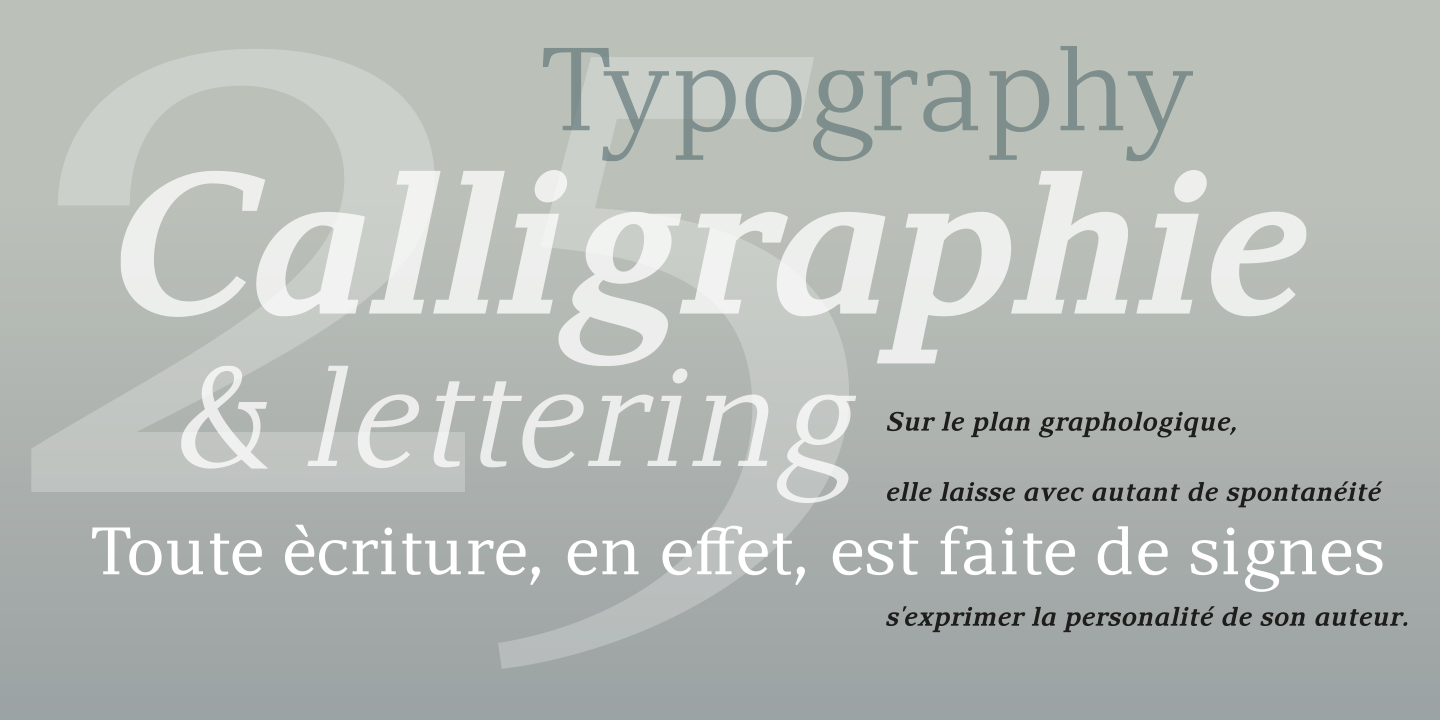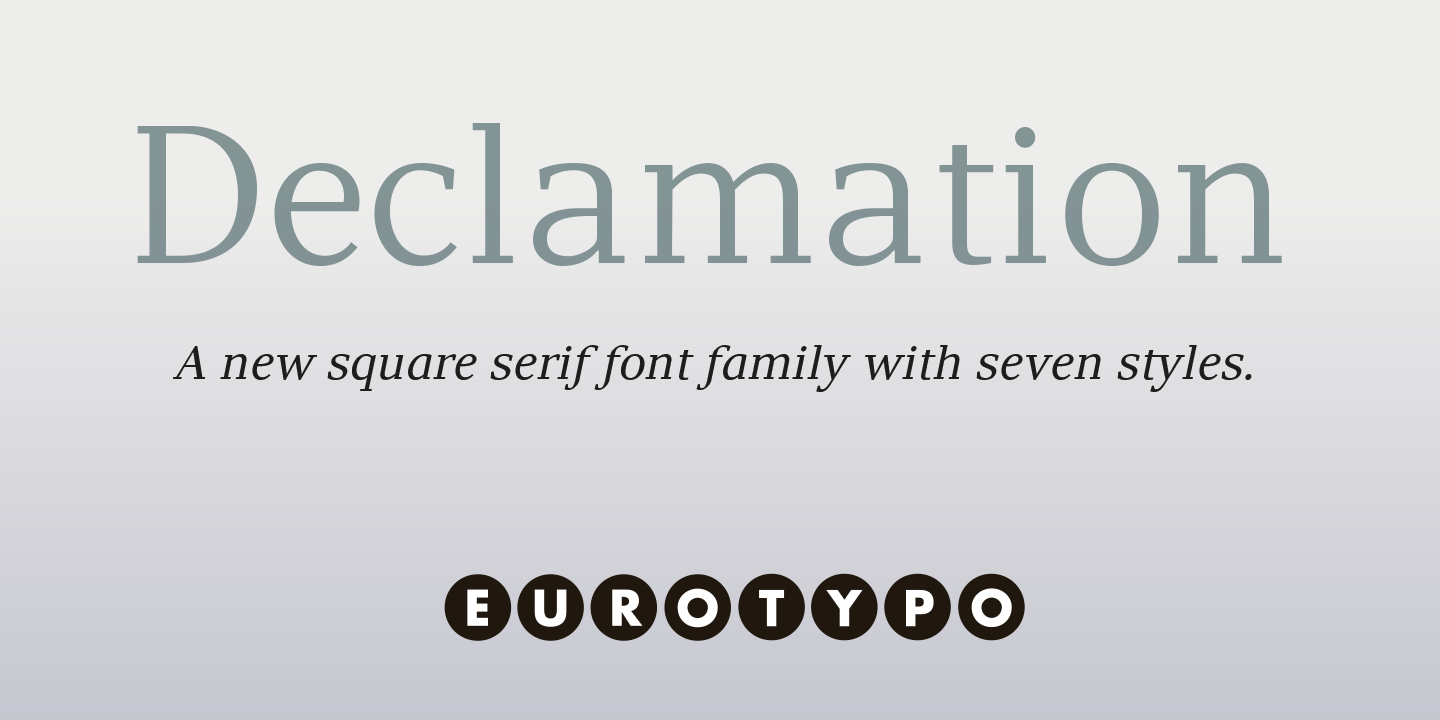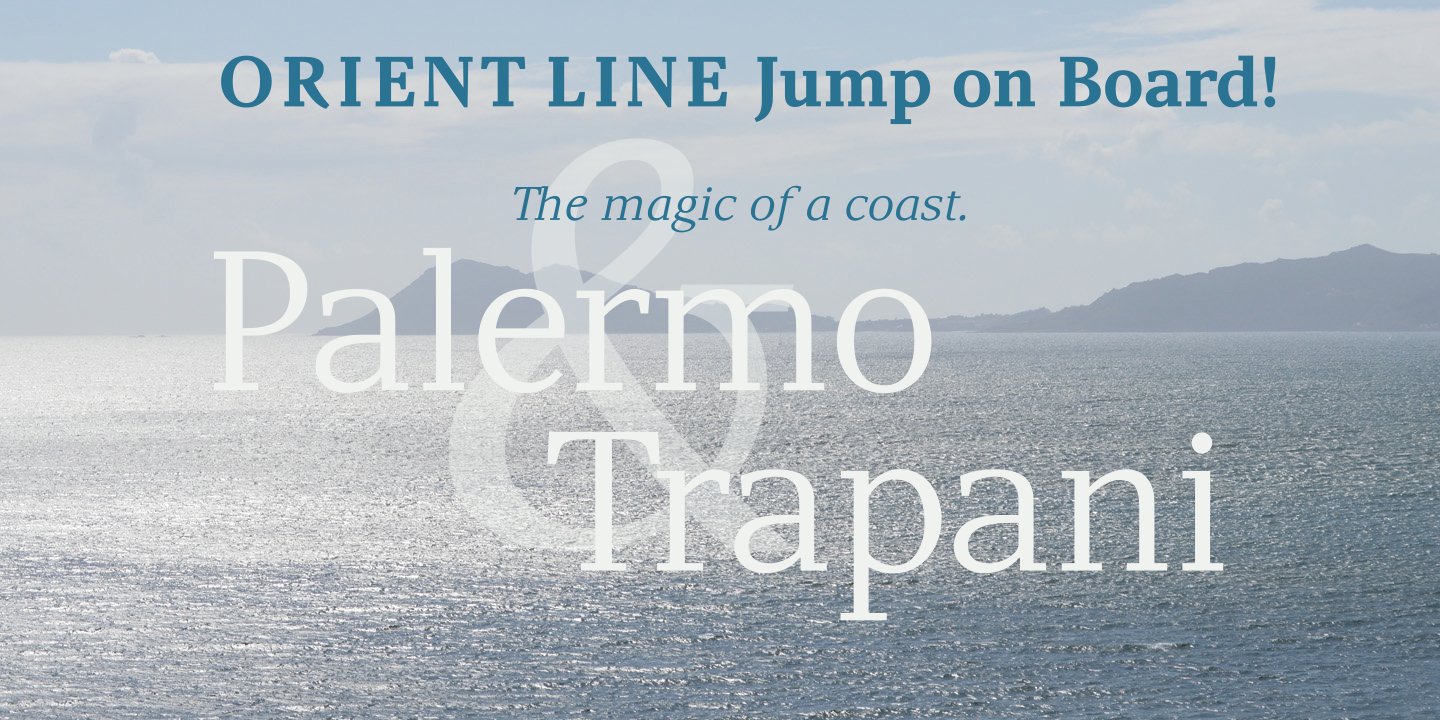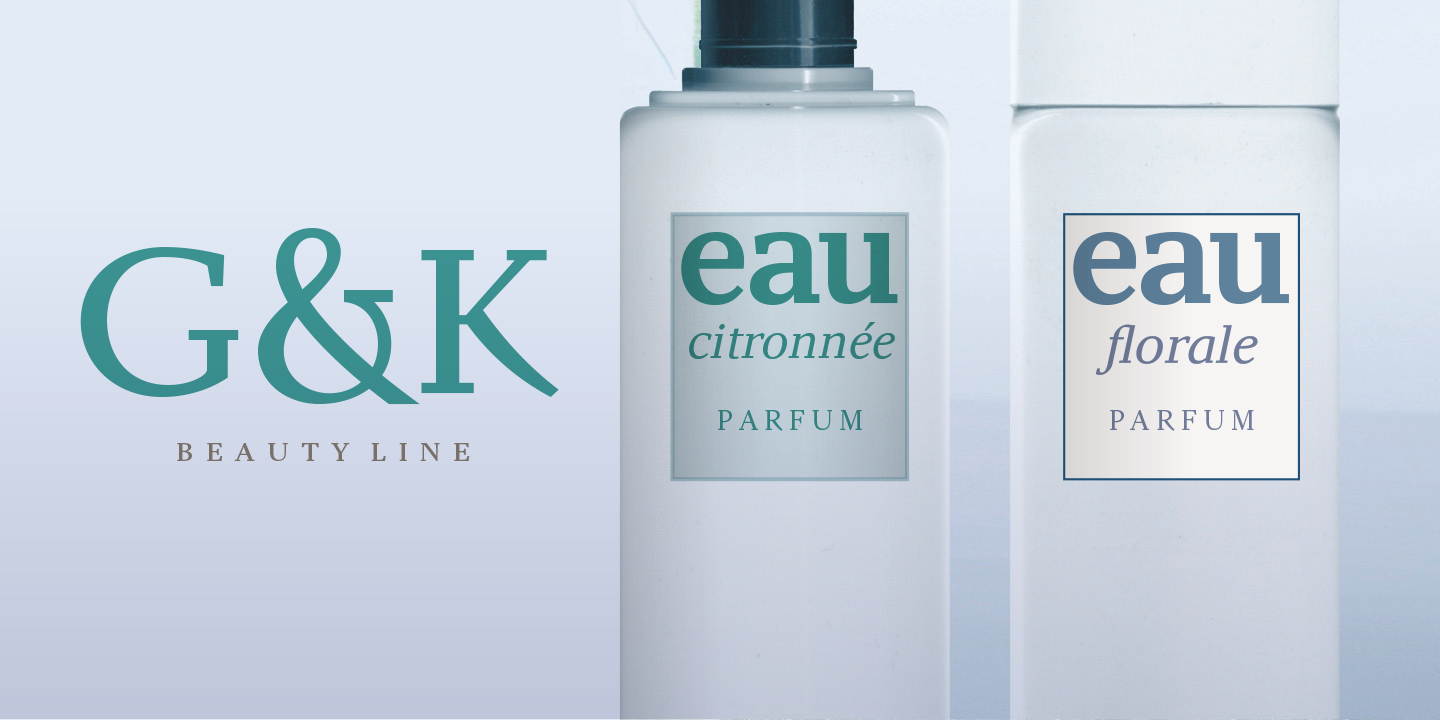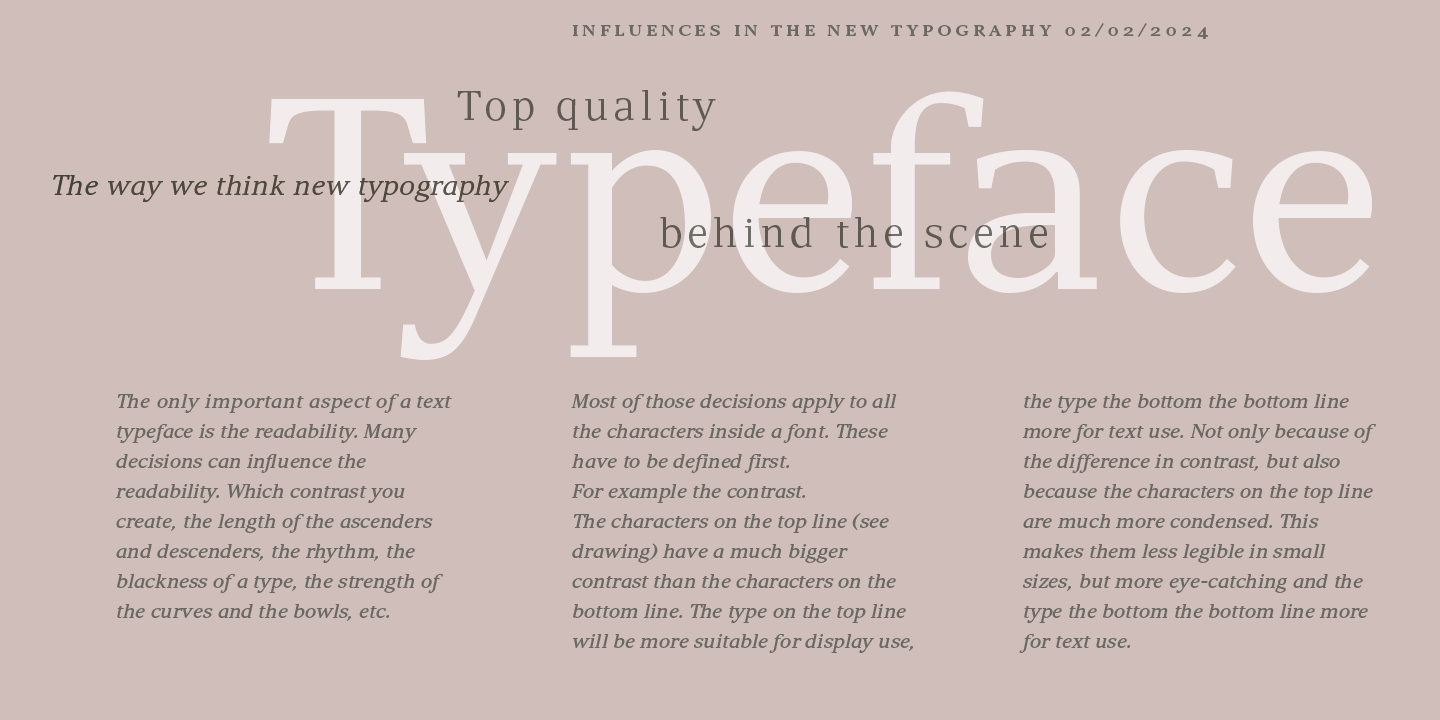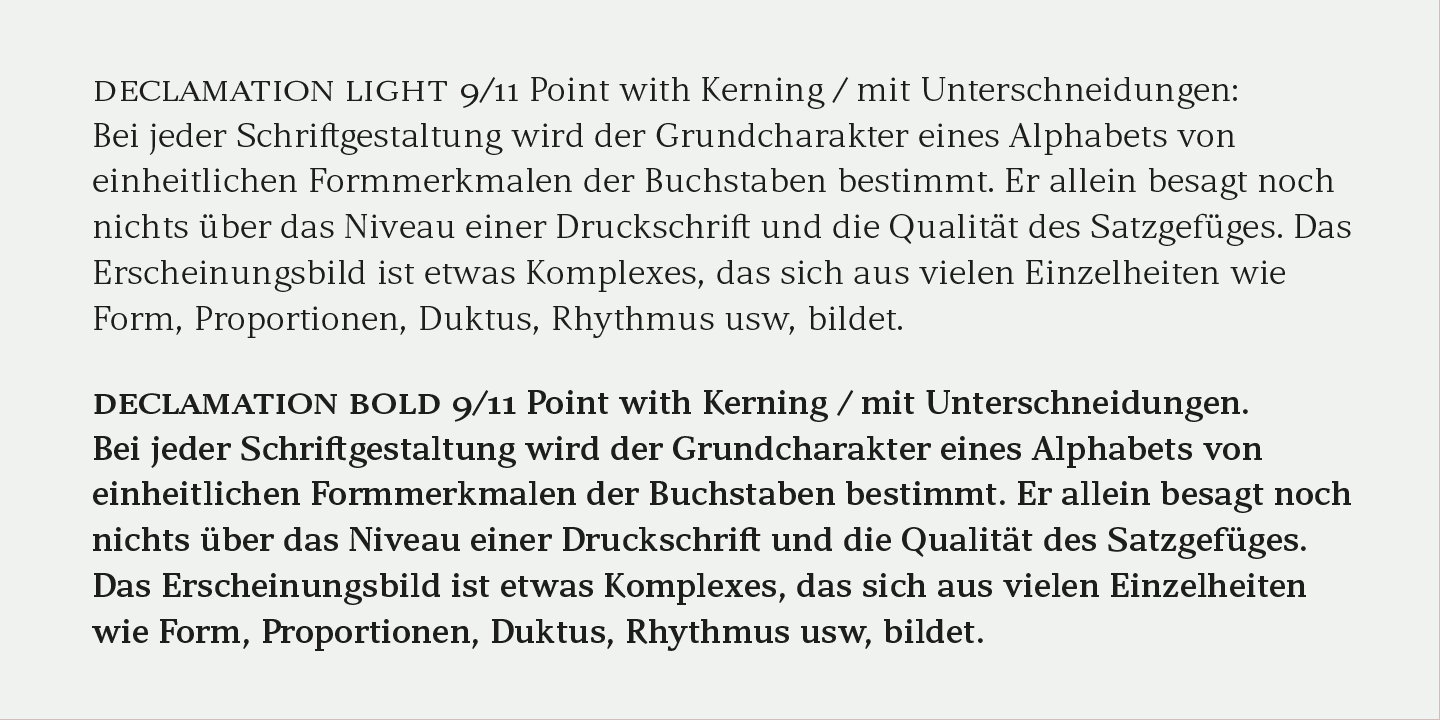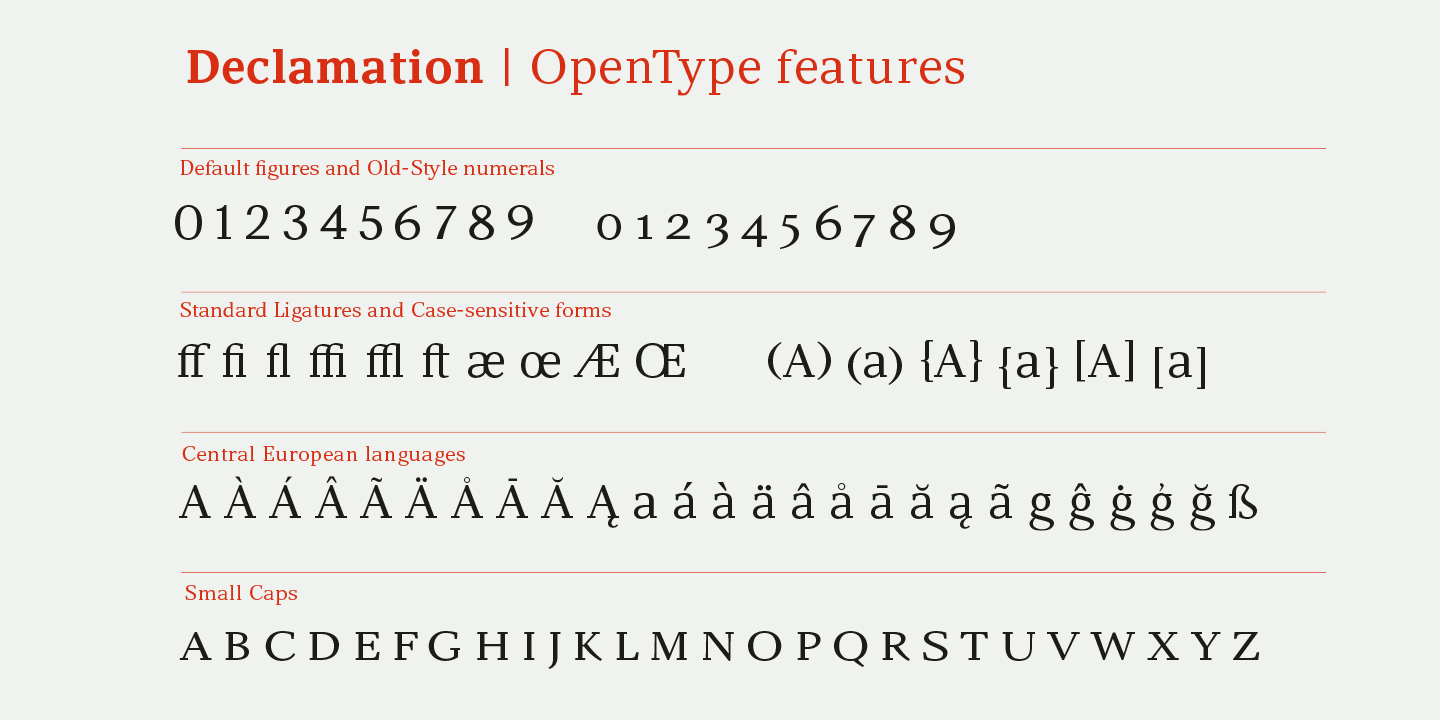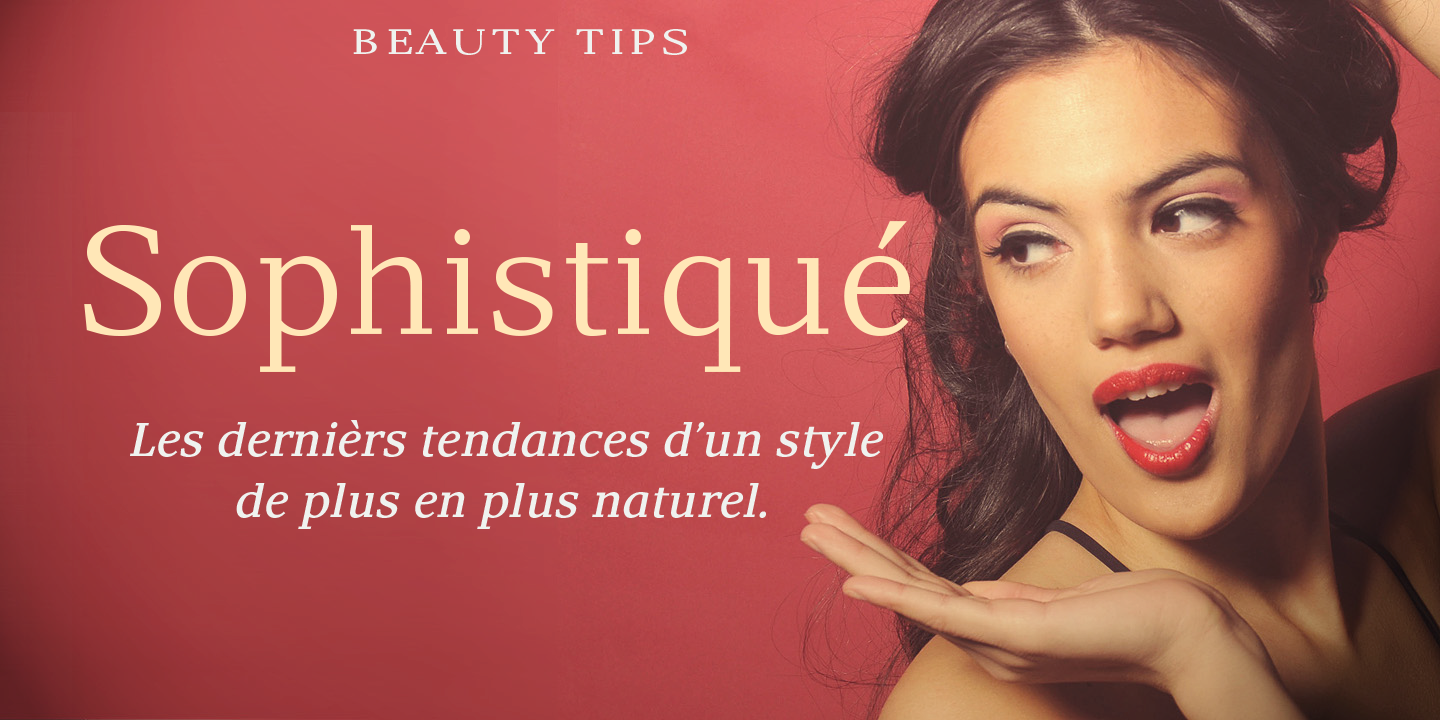
Declamation
Olcar Alcaide
2024
A Robust Square Serif for Display
Square serif typefaces are font families with strong visual emphasis, developed especially for advertising and display design within the context of growing industrialization. These typefaces, known as "Slab serif," "Egyptian," or "Mécanes," emerged alongside Gothic fonts, both responding to the need for a bolder and more robust visual expression for 19th-century industrial society.
The Legacy of the 19th Century Style
The first recorded slab serif typeface appeared in England in 1817, marking the beginning of a typographic design trend aimed at capturing attention with thick lines and solid structures. Initially, slab serif fonts were designed exclusively in uppercase, which enhanced their visual impact in printed materials. However, lowercase letters were soon added, expanding their versatility and allowing for more nuanced and accessible communication.
A Versatile Family for Modern Sports & Branding
The “Declamation” font family is a modern example of this tradition. It consists of seven weights, ranging from Light to Black, providing a versatile range for sports branding, posters, and various visual applications. Additionally, each weight includes a 12° slanted version, which in some cases features more calligraphic characteristics, evoking subtle italic qualities that add dynamism and elegance to typographic compositions.